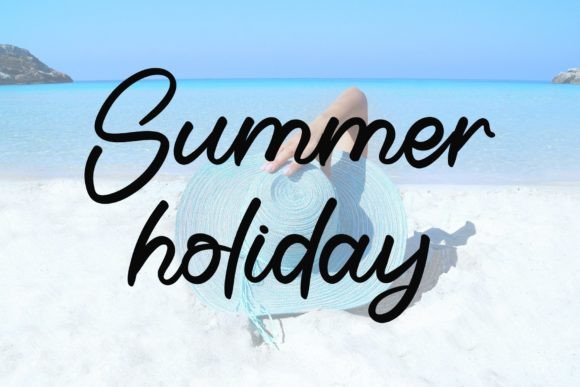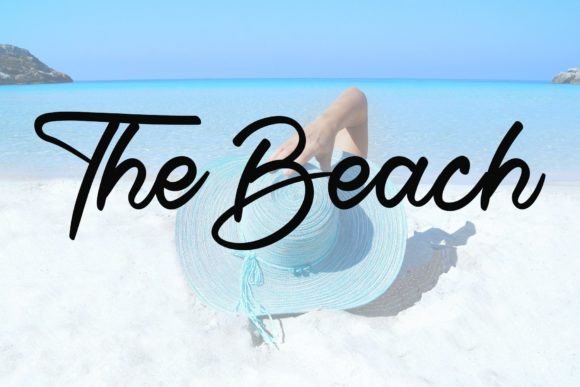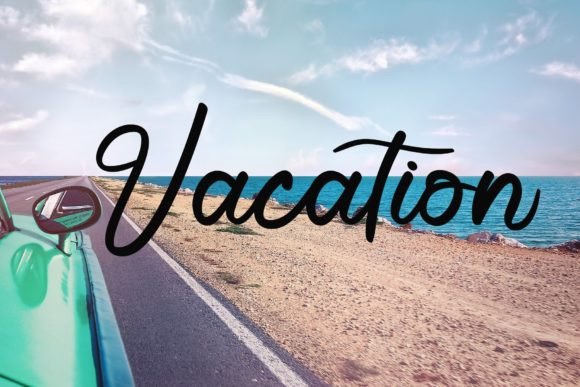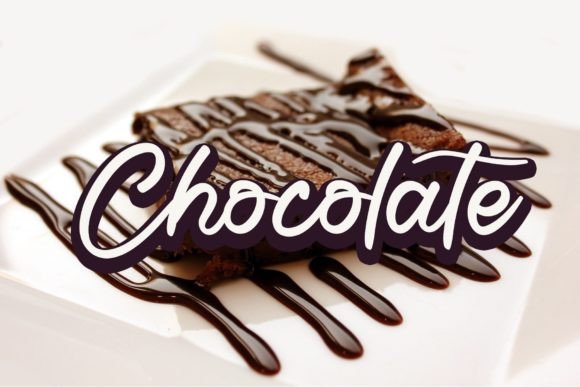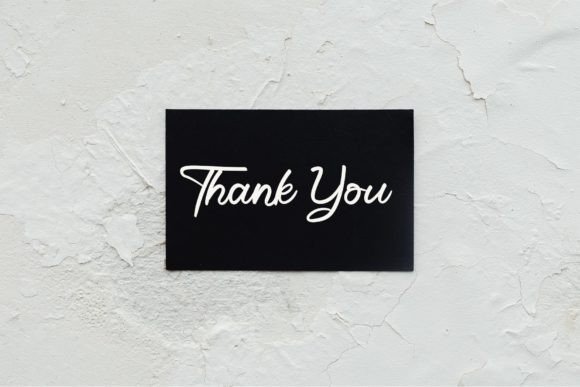
Staycation Font
About Staycation Font
Staycation is a delightful, romantic, and beautiful script font that exudes sweetness and charm. With its carefully crafted curves in each letter, this font adds a chic flair to your designs, making it a perfect choice for a variety of creative projects.
The romantic and sweet nature of Staycation makes it well-suited for applications where a touch of elegance and sophistication is desired. Whether you’re working on wedding invitations, love-themed designs, or any project that calls for a graceful and beautiful script, Staycation effortlessly captures the essence of romance.
The font’s chic and stylish appearance allows it to enhance the visual appeal of your designs, adding a sense of refinement. Its versatility makes Staycation suitable for a range of applications, including branding, posters, social media graphics, and more.
In summary, Staycation is more than just a font; it’s a design element that brings sweetness, romance, and beauty to your creative endeavors. Let its beautiful curves and chic flair elevate your projects, creating a visually captivating and charming aesthetic.